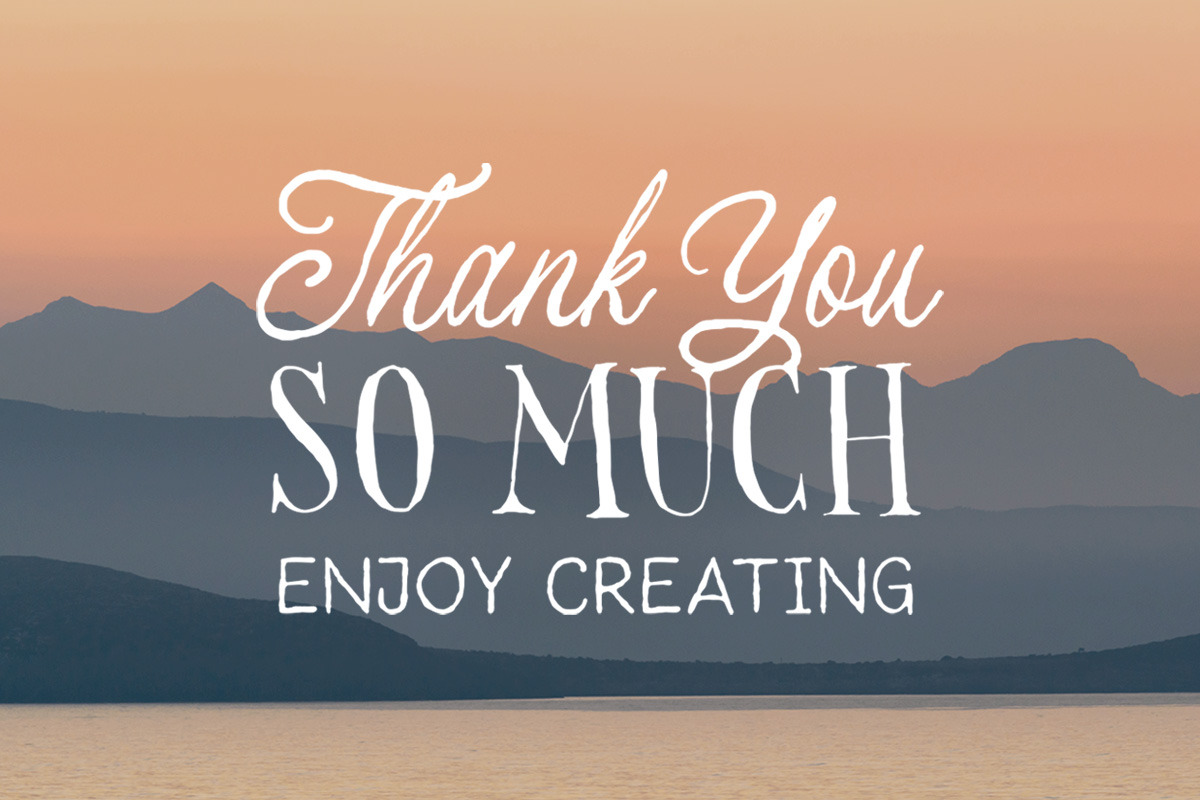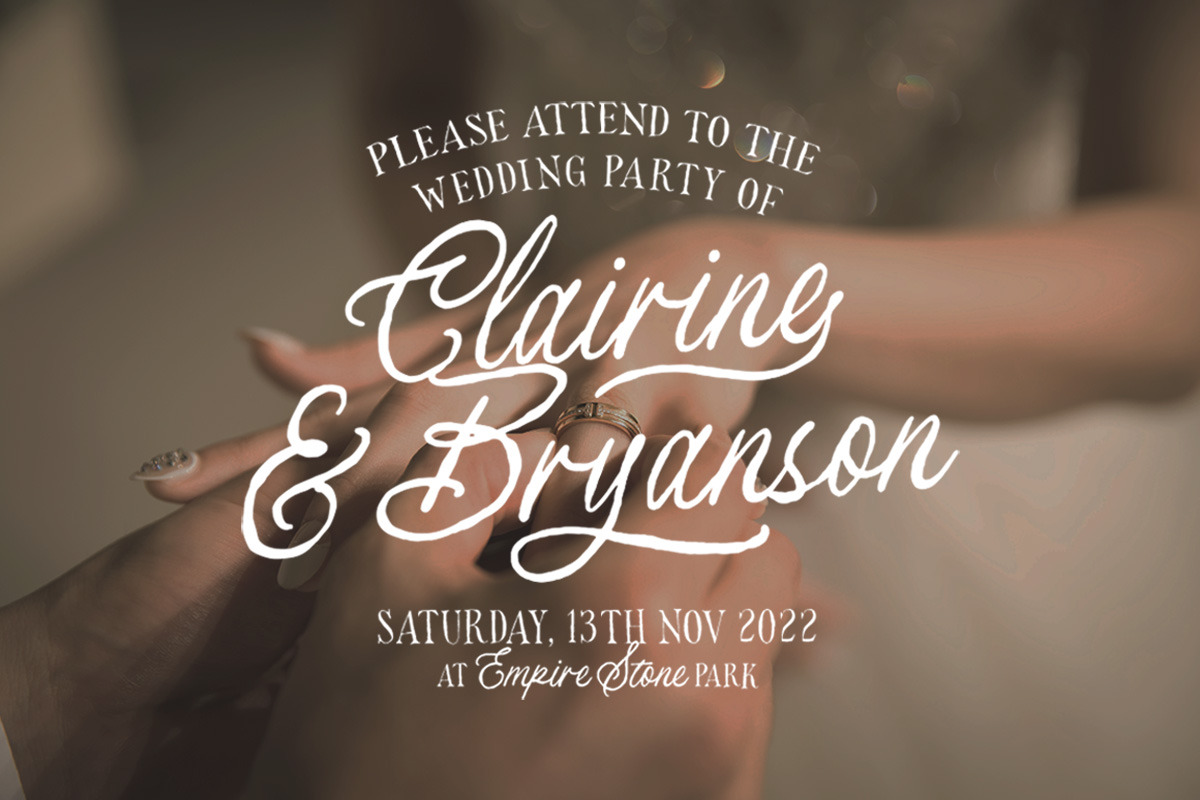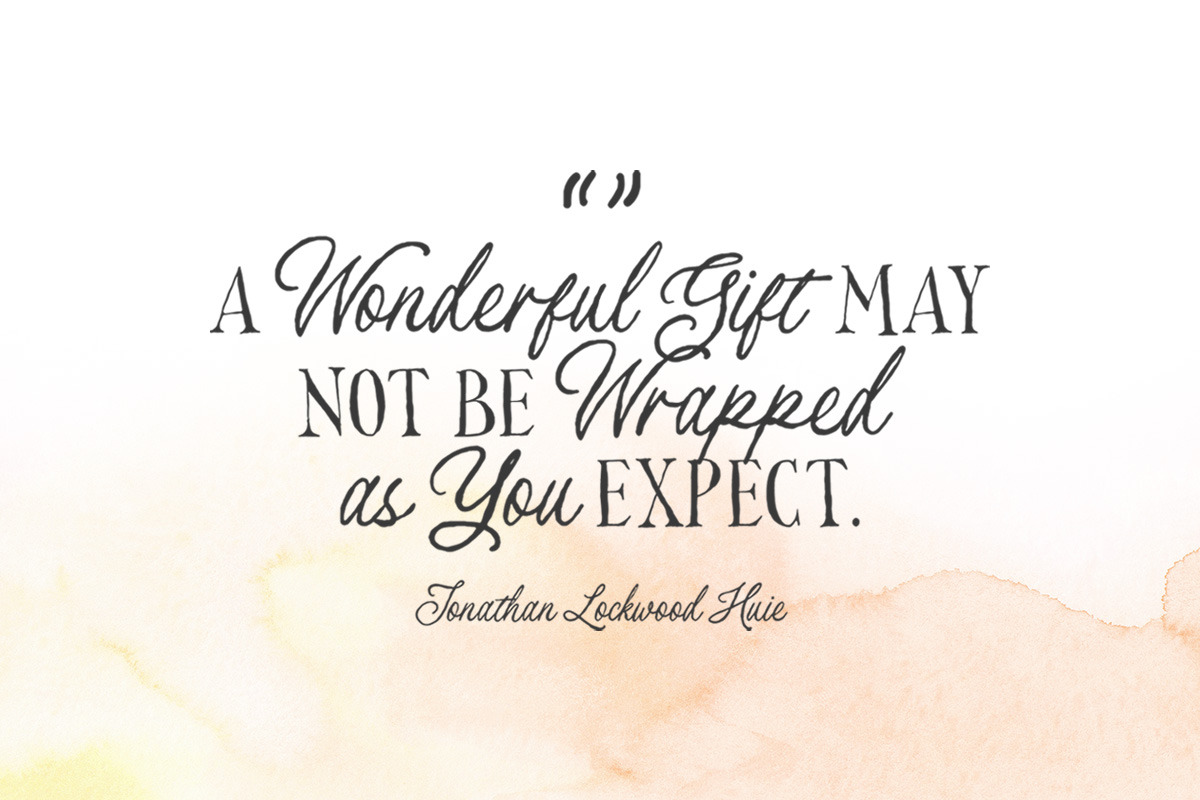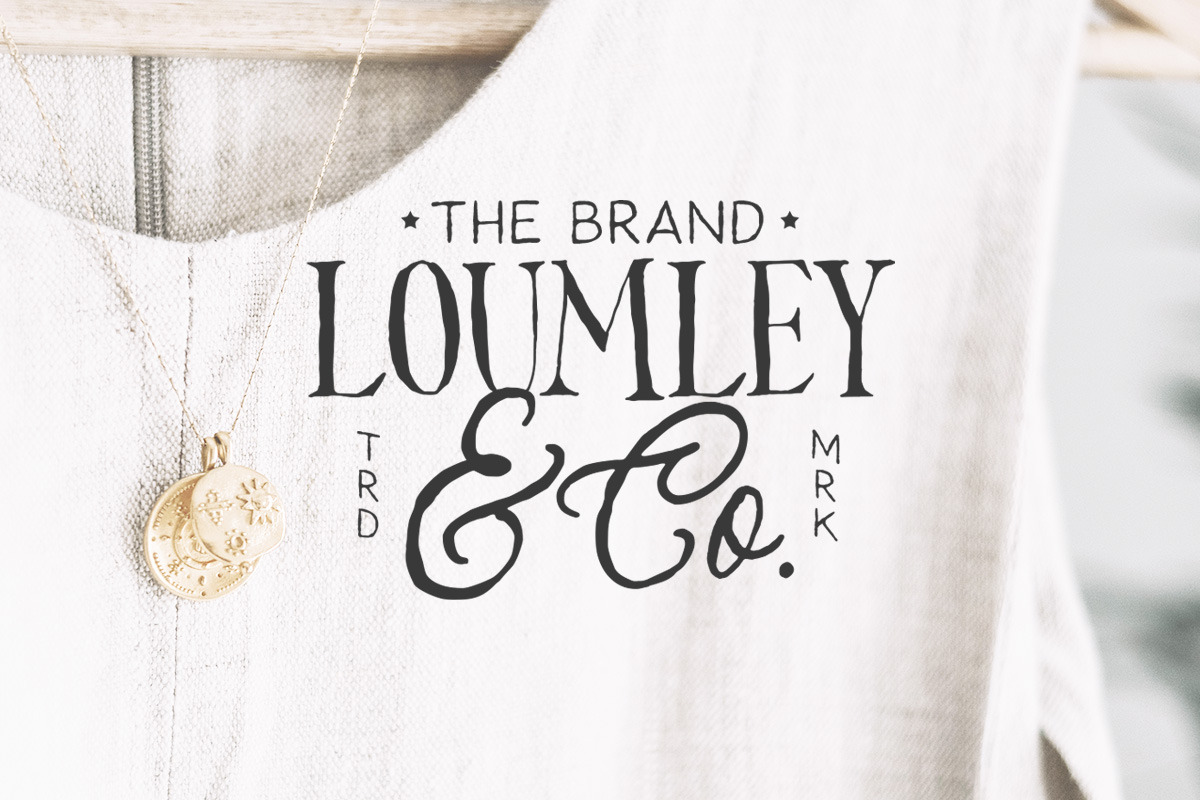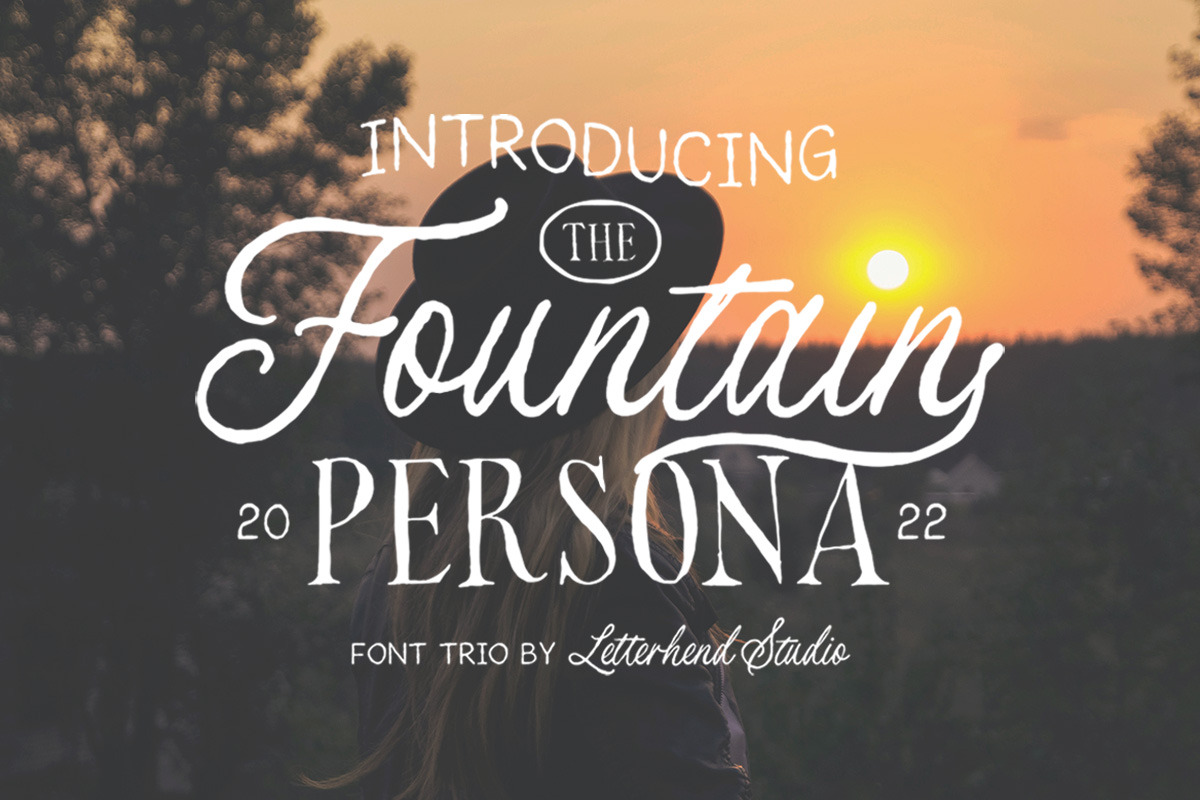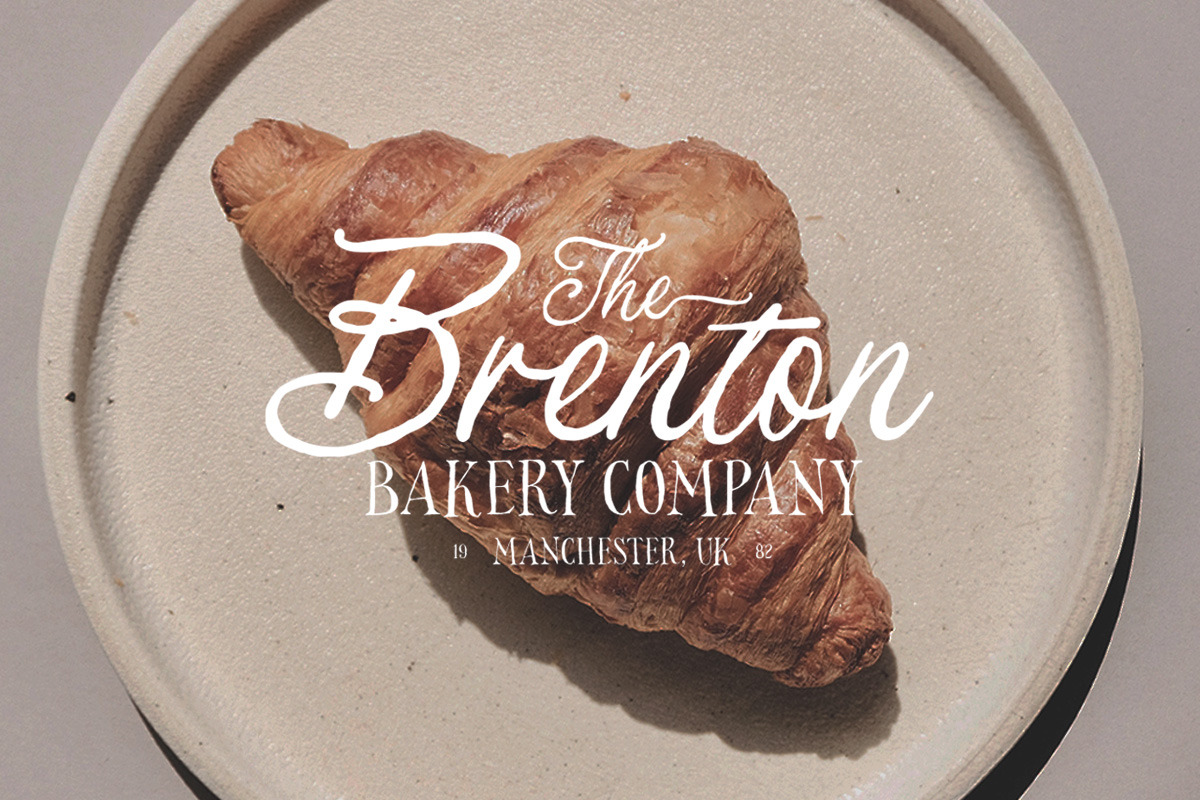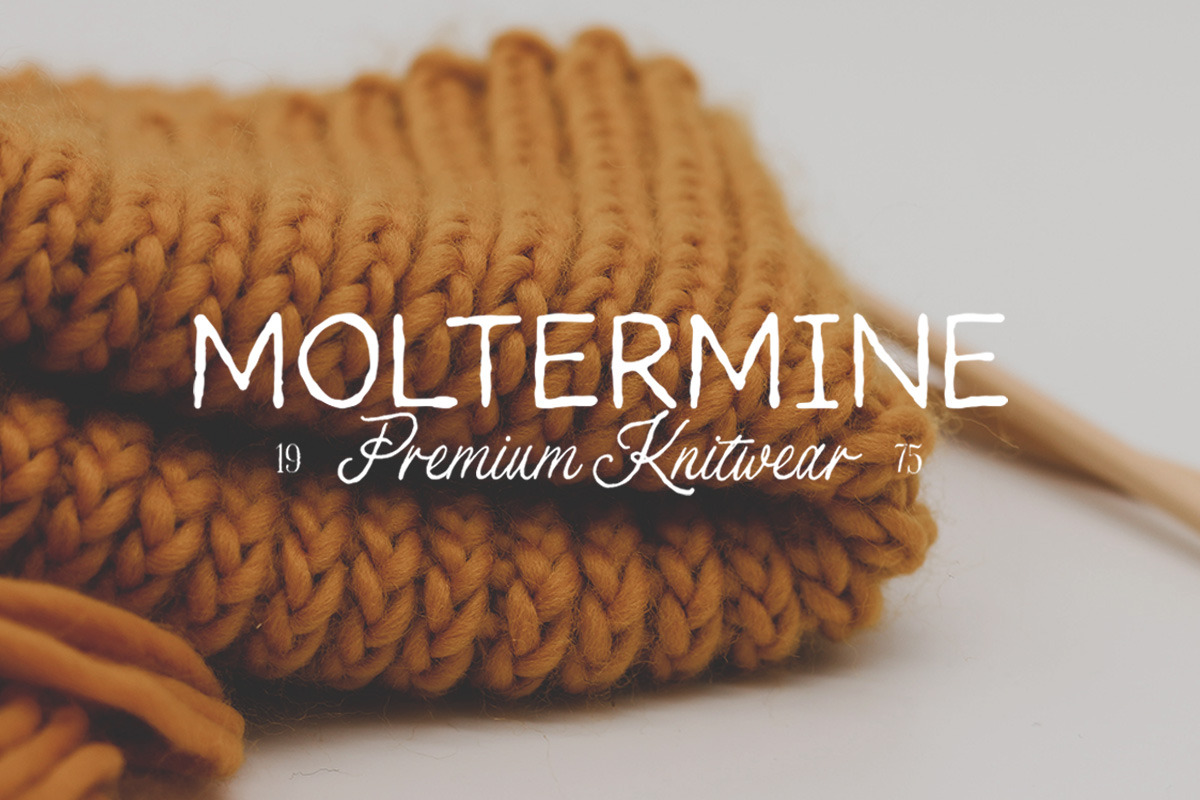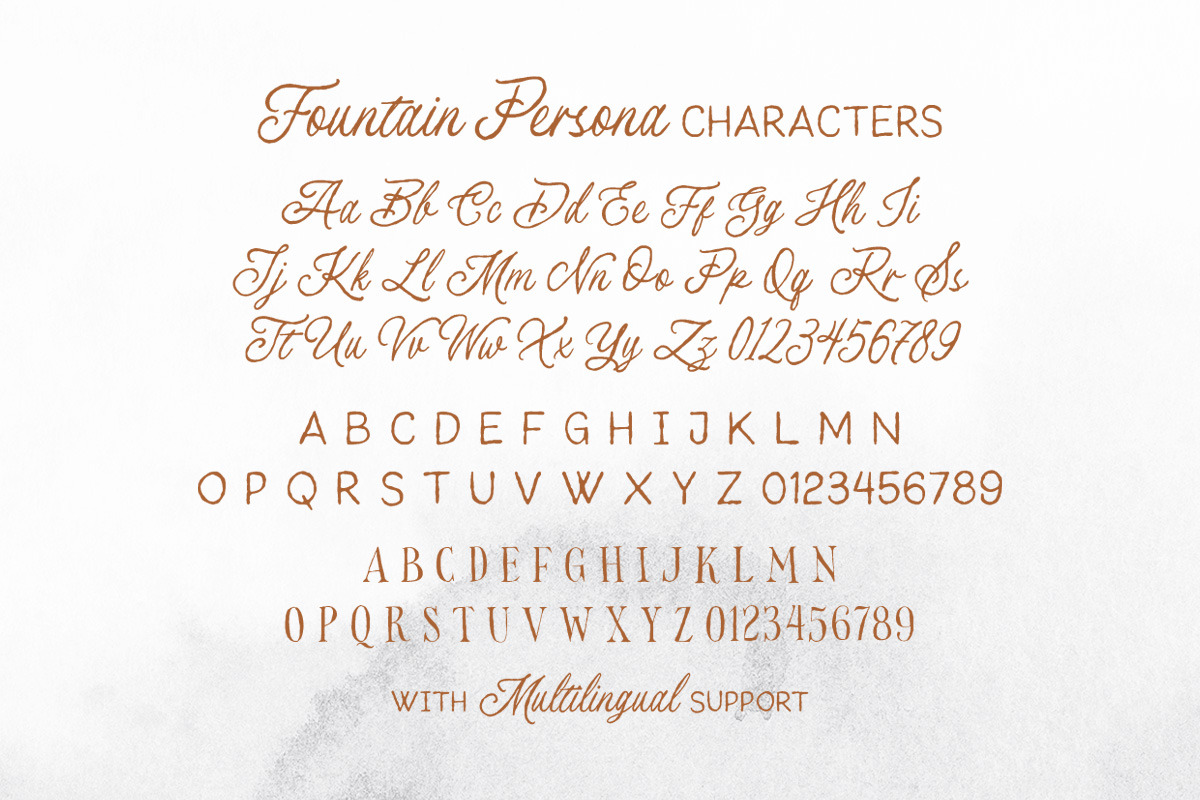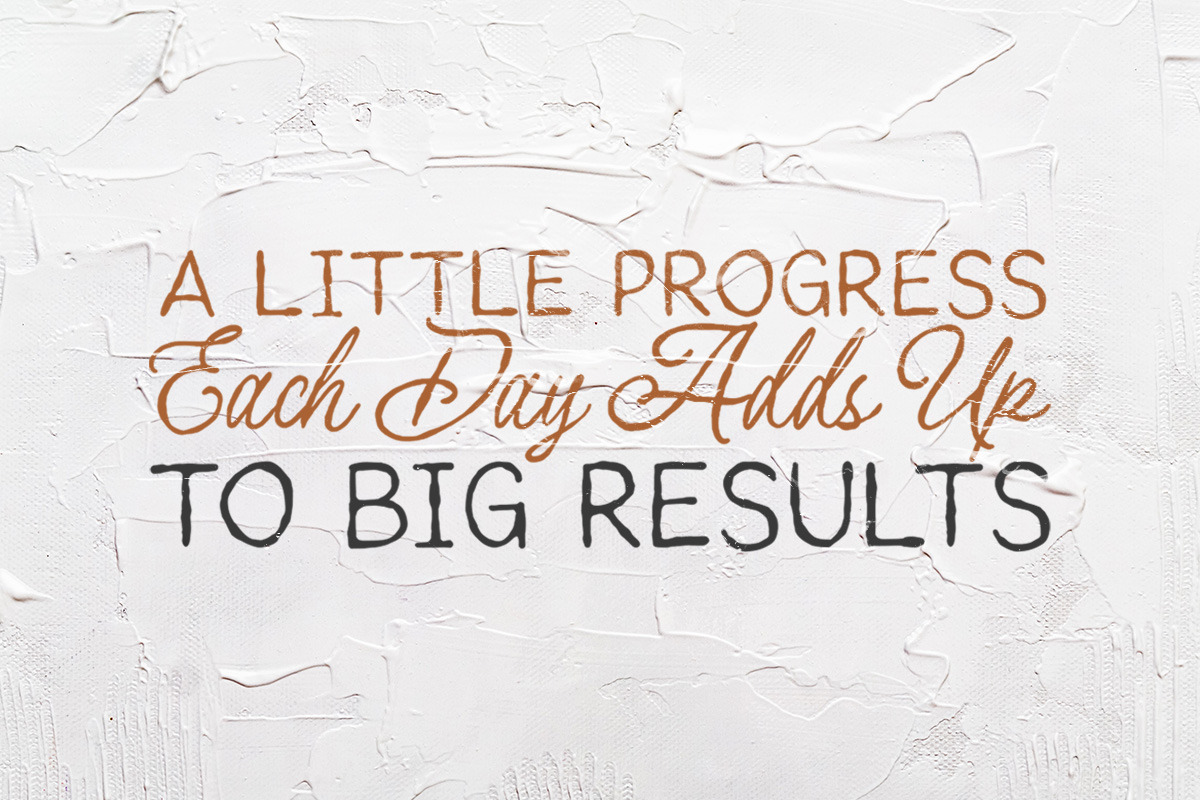
Fountain Persona - Font Trio
Fountain Persona is a font pack consist of 3 fonts. These fonts were created based on authentic hand writing with natural signature style. It worked well to combine these three fonts into one lettering. This type of font perfectly made to be applied especially in logo, and the other various formal forms such as invitations, labels, logos, magazines, books, greeting / wedding cards, packaging, fashion, make up, stationery, novels, labels or any type of advertising purpose.